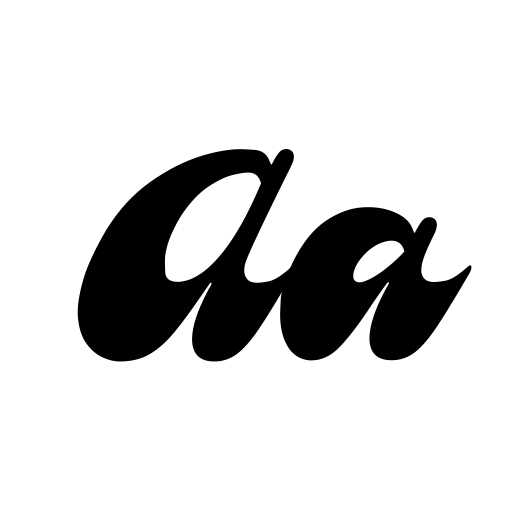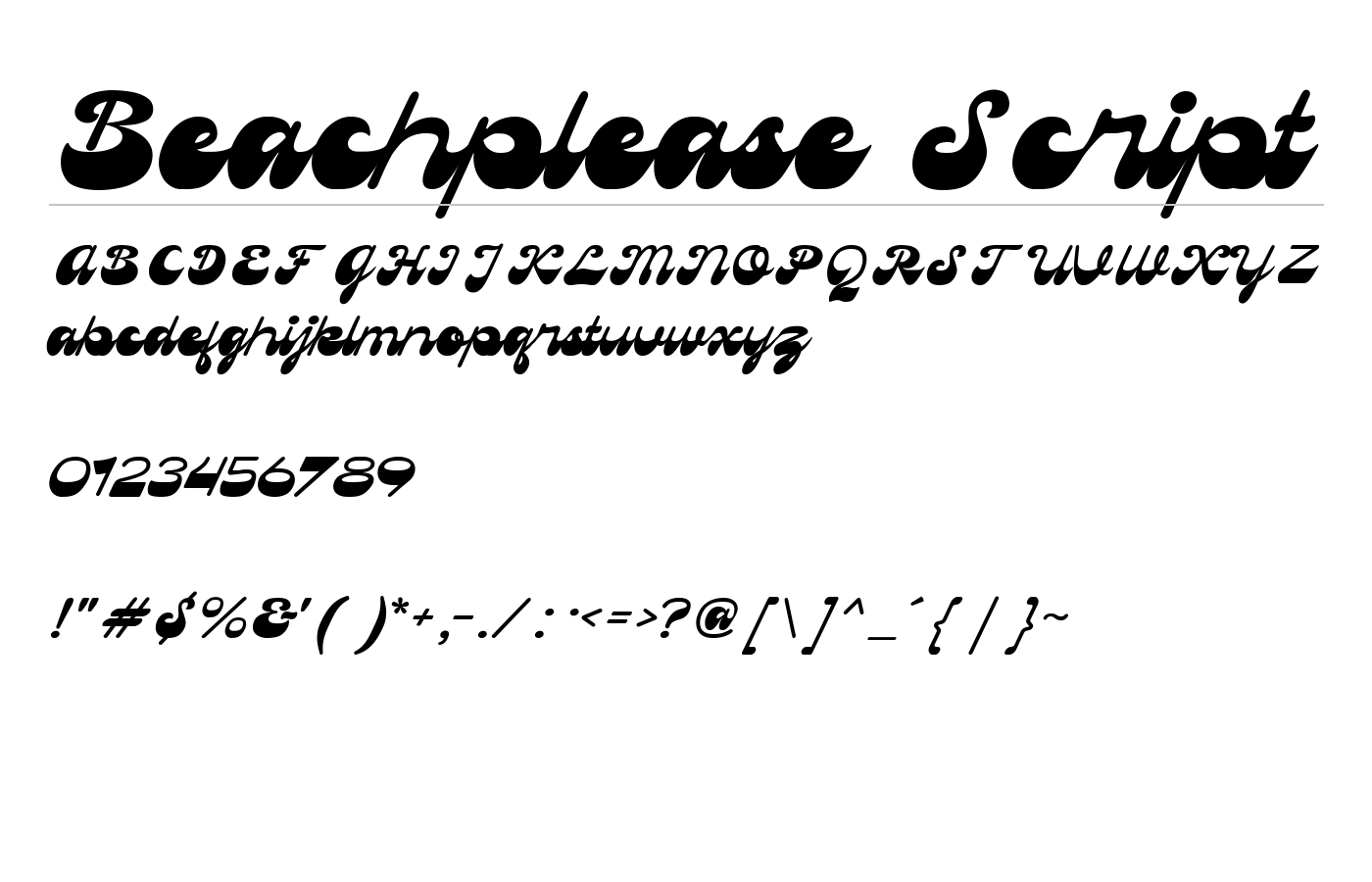
Beachplease Script is a playful and bold script font characterized by its thick, rounded strokes and smooth, flowing connections, evoking a casual, hand-painted sign vibe. Its lively letterforms and moderate slant make it ideal for fun, energetic branding, invitations, and headlines where a friendly, approachable feel is desired. This font works best in creative projects that want to convey warmth and personality with a vintage yet fresh touch.
Beachplease Script Font
About Beachplease Script Font